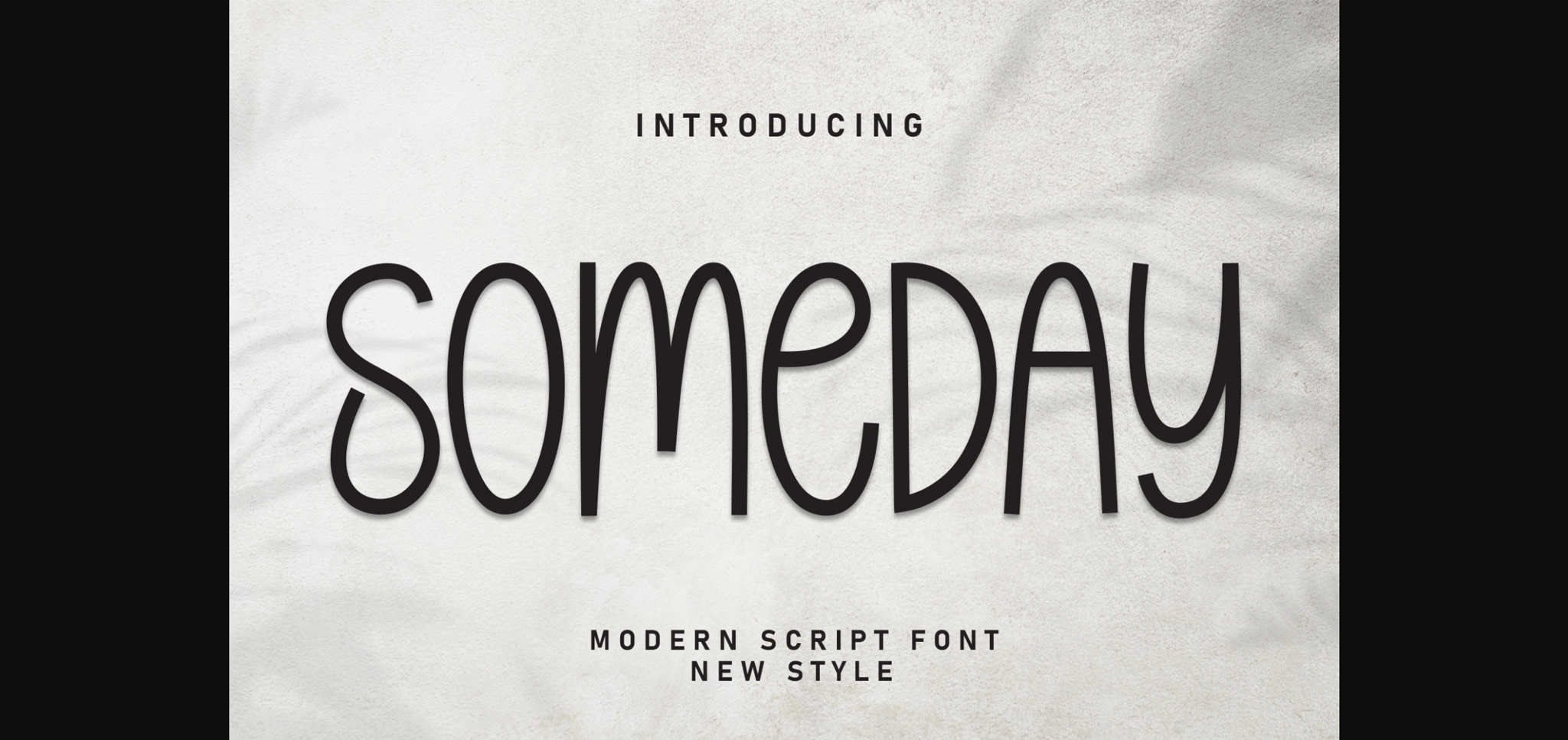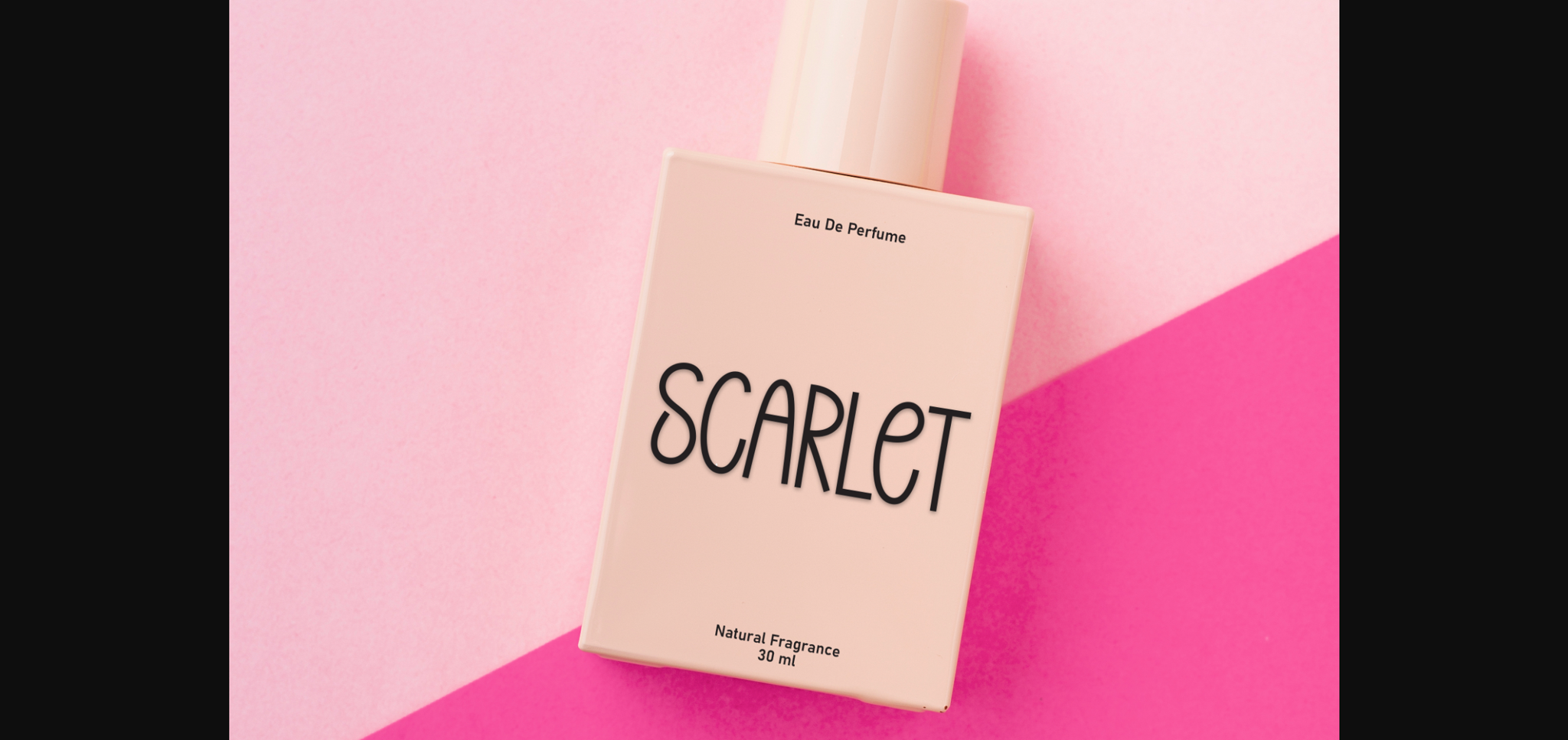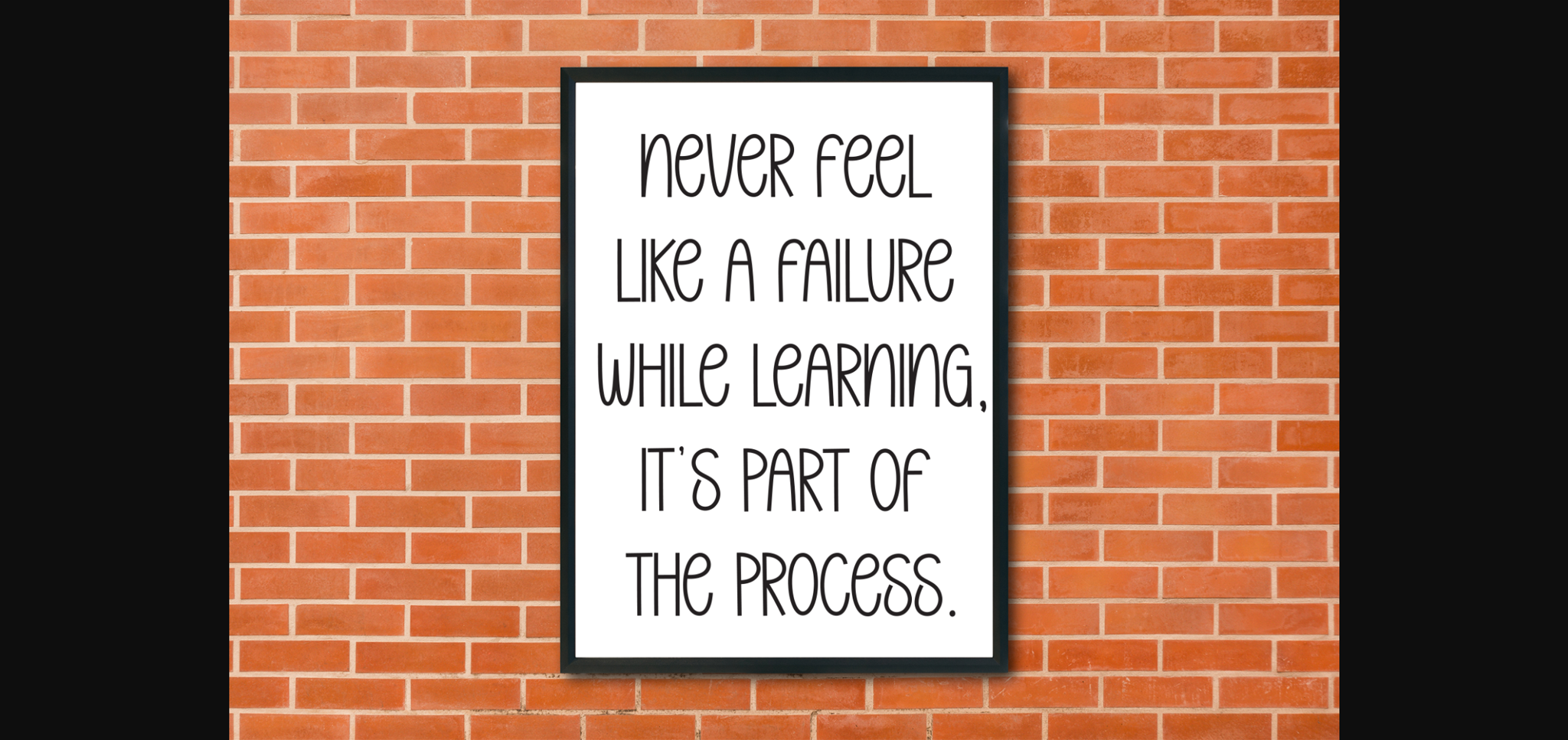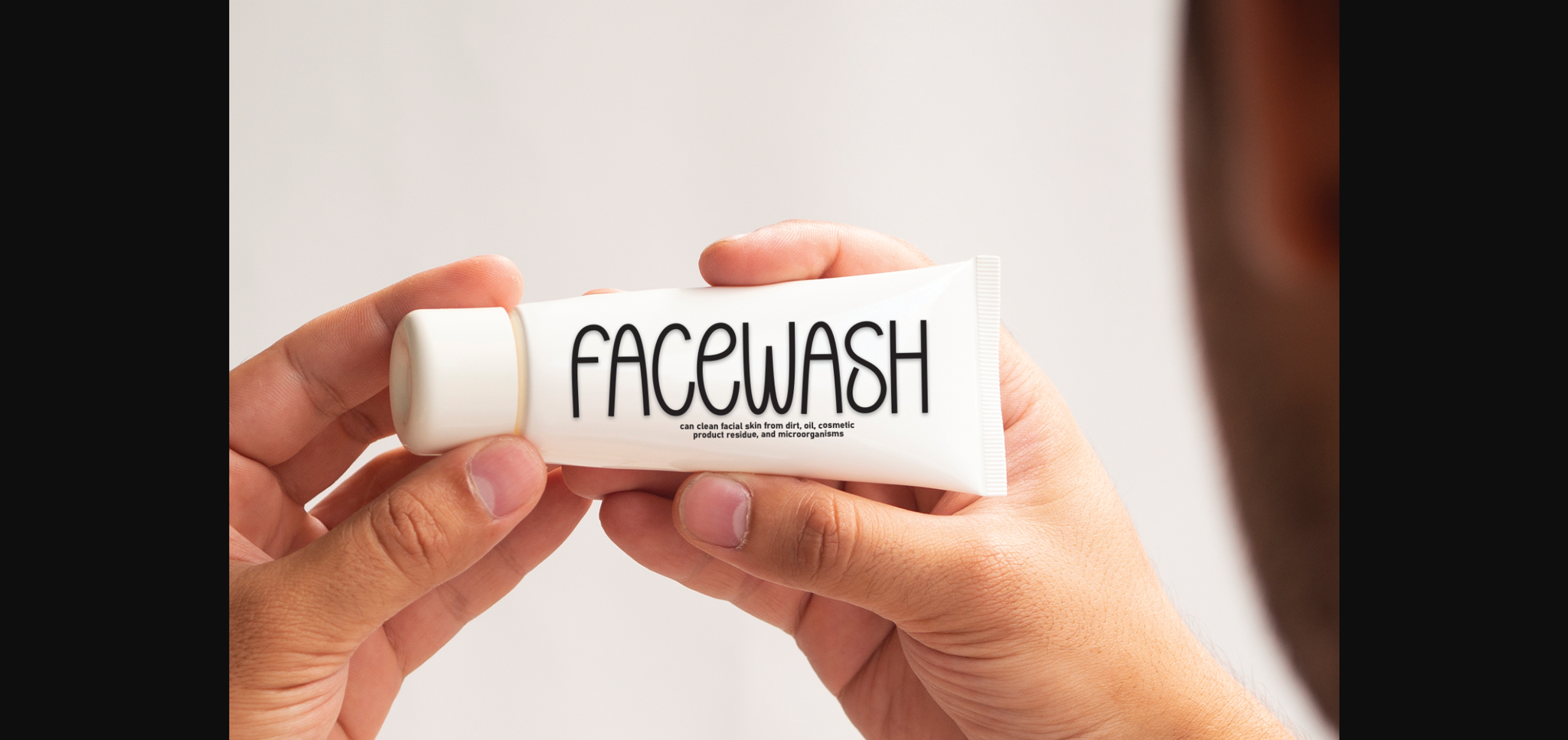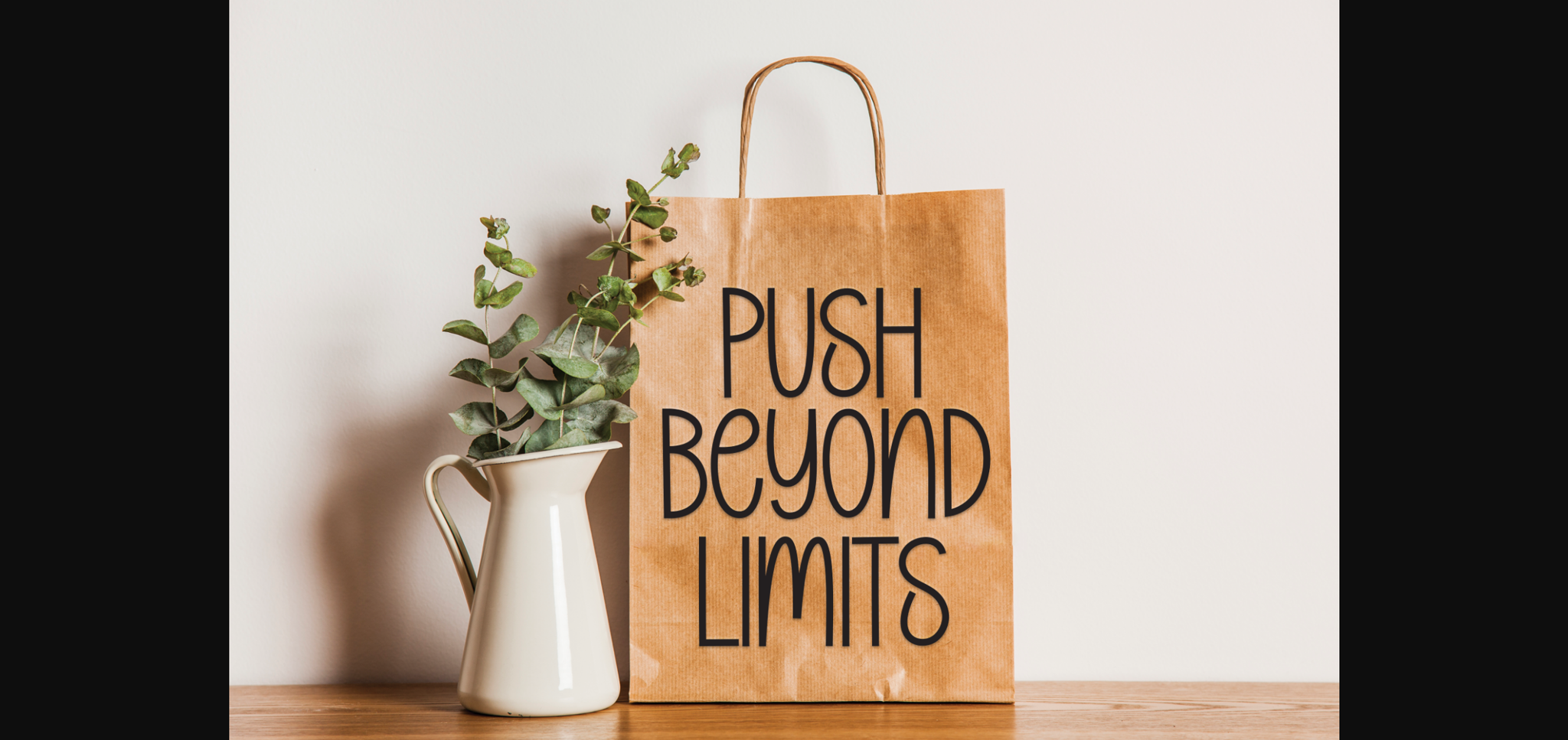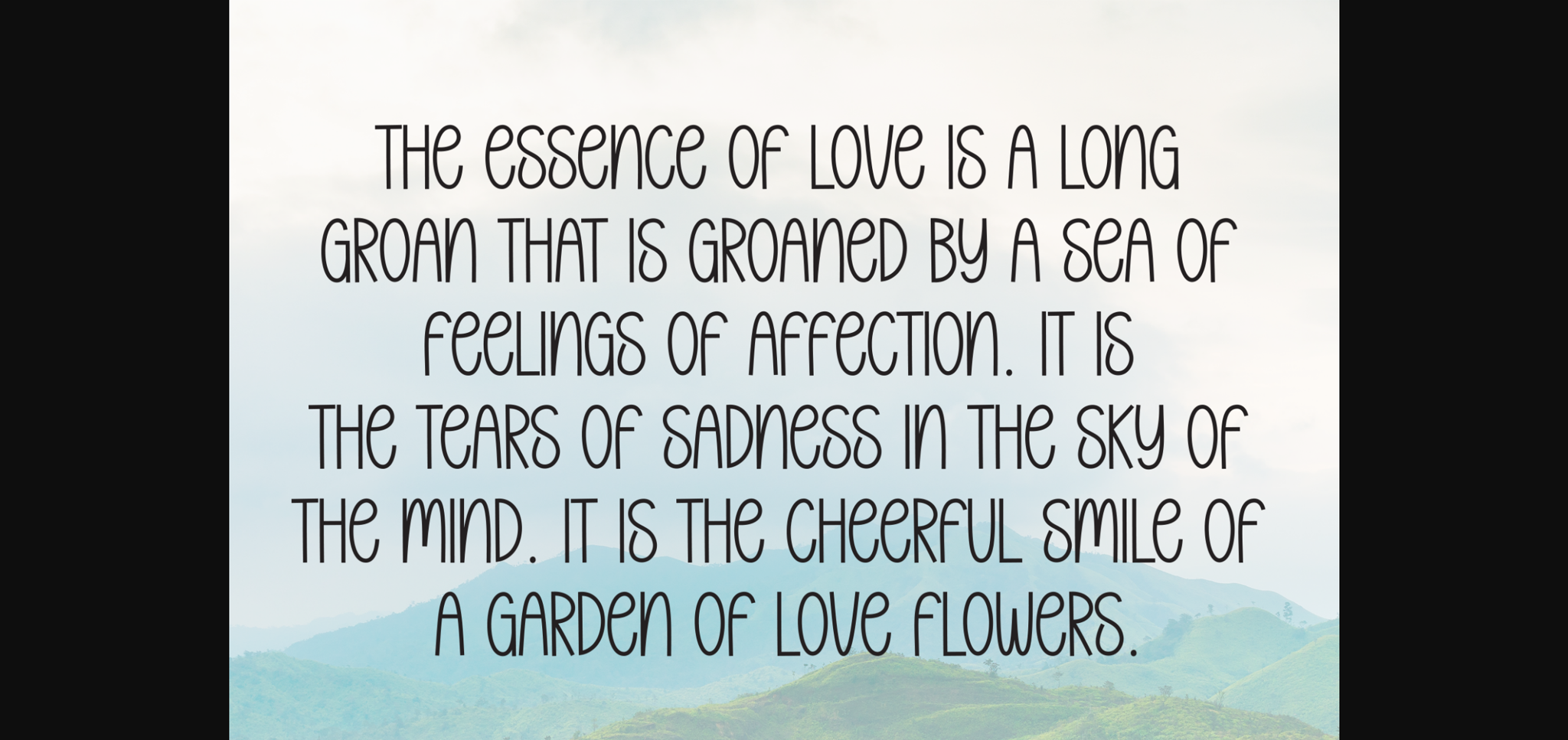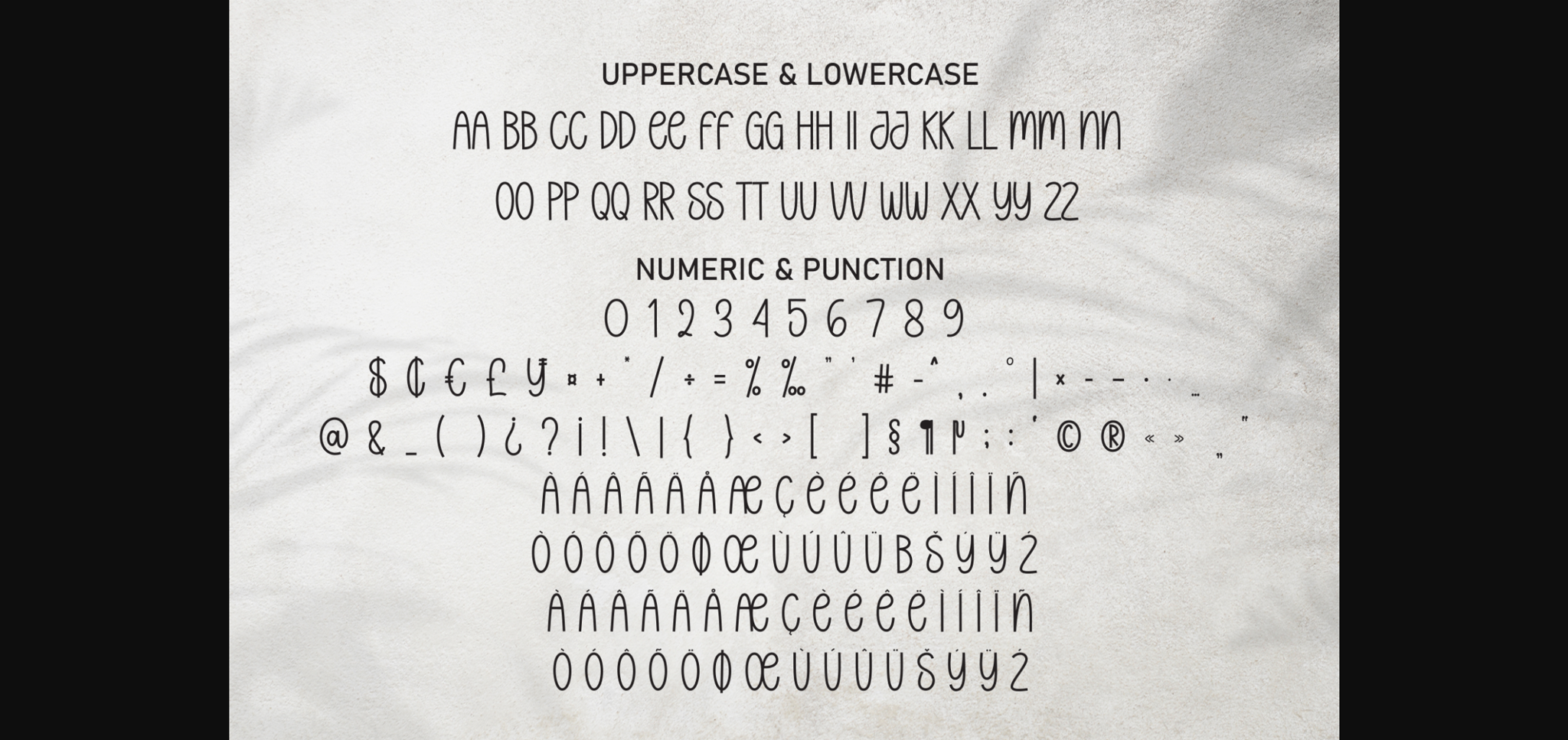
HomeSans Serif FontsSomeday Font Sans Serif Fonts Someday Font FacebookXPinterestWhatsApp 1 of 10 ... Someday Font Poster 2... Someday Font Poster 3... Someday Font Poster 4... Someday Font Poster 5... Someday Font Poster 6... Someday Font Poster 7... Someday Font Poster 8... Someday Font Poster 9... Someday Font Poster 10... About Someday Font Someday is a sweet and friendly sans-serif font. Cute and versatile, this font is ideal for writing wedding invitations, cards, or any other design that might need a fun touch! DOWNLOAD NOW People also explored Play Groups Font Girly Chaca Font Haedar Font Trench Font Seattle Script Font Lozdolls Font Ballyhoo Font Rondo Ship Font Padukow Font 366 0 TagsSomedaySomeday Font Previous articleWonderful Midnight FontNext articleMonogram Font LEAVE A REPLY Cancel reply Comment: Please enter your comment! Name:* Please enter your name here Email:* You have entered an incorrect email address! Please enter your email address here Website: Save my name, email, and website in this browser for the next time I comment. Personal Use Free Feather Script Personal Use Free Read more about this font Fifty Five Personal Use Free Read more about this font Indonesia Dermawan Personal Use Free Read more about this font Handayani Personal Use Free Read more about this font BLOG Free Fonts Risk: Why Free Fonts Can Be Dangerous for Designers Free Fonts Risk: Why Free Fonts Can Be Dangerous for Designers Using free fonts is a common practice in web and graphic design. However, the... Top 7 Google Fonts Alternatives for Faster and Privacy-Friendly Web Design (2025) Elegant Wedding Invitation Fonts – Handwritten & Script Fonts Using Fonts in Digital Marketing: Tips to Strengthen Your Brand Identity